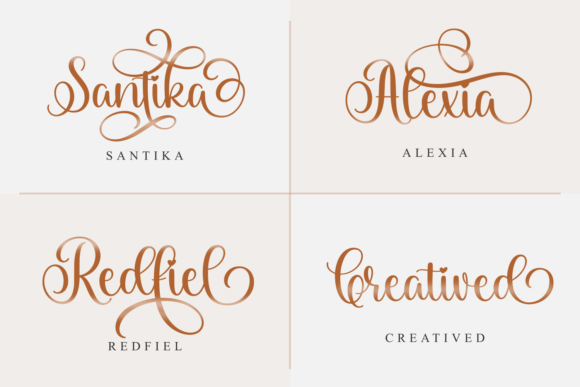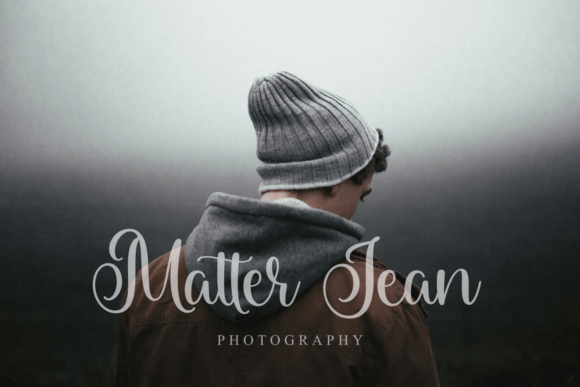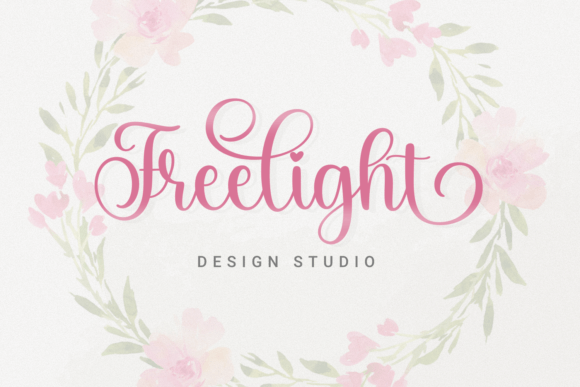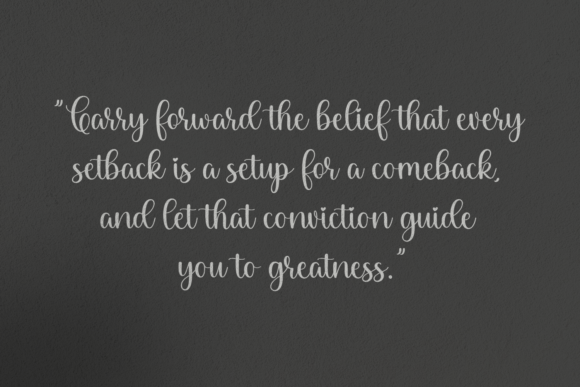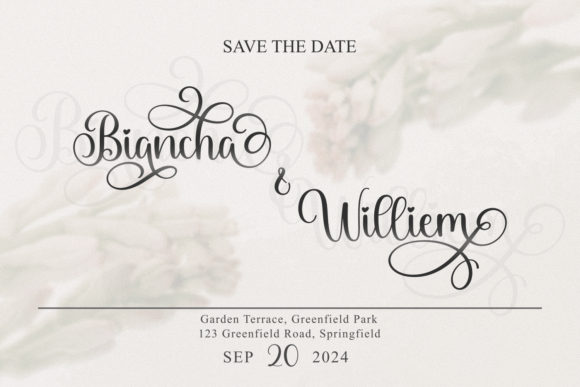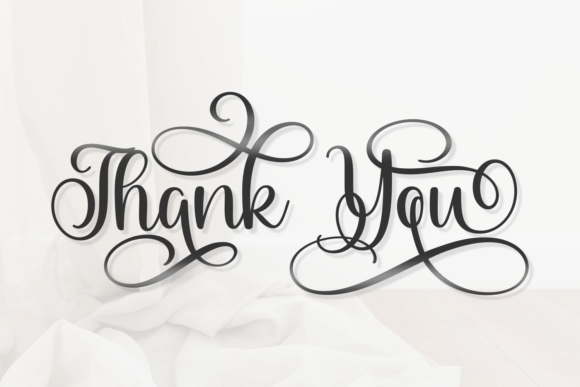
Introducing Artaline Font: Elevate Your Designs with Elegance and Flair
In the world of typography, a font can make or break the visual appeal of a design. For designers and crafters looking to add a touch of sophistication and whimsy to their work, Artaline Font is an excellent choice. This modern calligraphy font strikes the perfect balance between elegance and casual charm, making it an ideal addition to any design project.
The Unique Charm of Artaline Font
Artaline Font is not just any ordinary font. Its stylistic swashes and fluid strokes bring a level of artistic flair that’s hard to achieve with standard fonts. Whether you’re working on logos, labels, branding materials, invitations, websites, or quotes, Artaline adds that special something that can elevate your designs from ordinary to extraordinary.
Key Features of Artaline Font
- Modern Calligraphy Style: Artaline boasts a contemporary calligraphy style that is both fresh and timeless. Its elegant strokes are perfect for designers looking to infuse a sense of luxury and sophistication into their work.
- Elegance with a Casual Touch: What sets Artaline apart is its unique ability to blend elegance with a casual, approachable vibe. This versatility makes it suitable for a wide range of design applications, from formal invitations to trendy branding materials.
- Stylistic Swashes: The font comes adorned with stylistic swashes, which are perfect for adding a decorative touch to your designs. These swashes can be used to create beautiful connections between letters, adding a dynamic and artistic element to your typography.
- PUA Encoding: Artaline Font comes with PUA (Private Use Area) encoding, which allows easy access to all glyphs and swashes. This feature unlocks limitless creative potential, giving designers the freedom to experiment with various combinations and create truly unique designs.
Applications of Artaline Font
The versatility of Artaline Font makes it suitable for a myriad of design projects. Here are some of the ways you can use Artaline to elevate your designs:
- Logos and Branding: Create memorable logos and branding materials that stand out with Artaline’s elegant and artistic strokes.
- Invitations and Stationery: Add a touch of sophistication to your invitations, greeting cards, and stationery with Artaline’s beautiful calligraphy.
- Websites and Digital Content: Enhance the visual appeal of your website or digital content with Artaline’s modern and stylish font.
- Quotes and Posters: Make your quotes and posters more impactful with Artaline’s artistic swashes and elegant typography.
Tips for Using Artaline Font Effectively
- Experiment with Swashes: Don’t be afraid to experiment with the stylistic swashes that come with Artaline. They can add a unique touch to your designs.
- Mix and Match: Try combining Artaline with other fonts to create interesting contrasts and hierarchies in your designs.
- Pay Attention to Spacing: Make sure to adjust the spacing between letters and words to ensure that your text is readable and visually appealing.
Artaline Font is a powerful tool for designers and crafters looking to add a touch of elegance and artistic flair to their work. With its modern calligraphy style, stylistic swashes, and PUA encoding, Artaline offers endless possibilities for creating stunning designs. Whether you’re working on a logo, invitation, website, or any other design project, Artaline is sure to make your work stand out. So why wait? Elevate your designs with the magical touch of Artaline Font today!